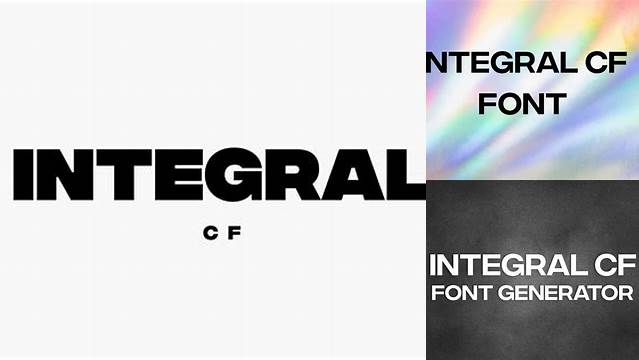
1. What is Integral CF Font?
Integral CF Font is a sans-serif typeface known for its clean lines, geometric shapes, and overall modern aesthetic. Designed with versatility in mind, it works wonders across various design projects. From logos and branding materials to website headers and print layouts, Integral CF Font adds a touch of sophistication and clarity. Its balanced letterforms ensure readability, making it an excellent choice for both display and body text. Designers often praise its adaptability, noting how seamlessly it integrates into different design styles, whether minimalist, futuristic, or corporate. The font family typically includes a range of weights and styles, offering even more flexibility to tailor your typography to specific needs. Whether you're crafting a brand identity or enhancing your website's user interface, Integral CF Font provides a contemporary and professional touch that can elevate your project.
2. Why Choose Integral CF Font?
Choosing the right font can make or break your design, and Integral CF Font offers several compelling reasons to be your go-to choice. First off, its modern and clean design lends a professional and contemporary feel to any project. Whether you're designing a sleek website, eye-catching marketing materials, or a sophisticated logo, Integral CF Font ensures your text looks polished and up-to-date. The font's versatility is another major advantage. It works beautifully in a variety of contexts, from headlines to body text, and across different mediums, both print and digital. Its clear and legible letterforms guarantee readability, making it user-friendly and accessible. Plus, Integral CF Font often comes in multiple weights and styles, giving you the flexibility to create visual hierarchy and add depth to your designs. In a world where first impressions matter, Integral CF Font helps you communicate your message with clarity and style, ensuring your design stands out for all the right reasons. So, if you’re aiming for a font that combines elegance, functionality, and adaptability, Integral CF Font is definitely worth considering.